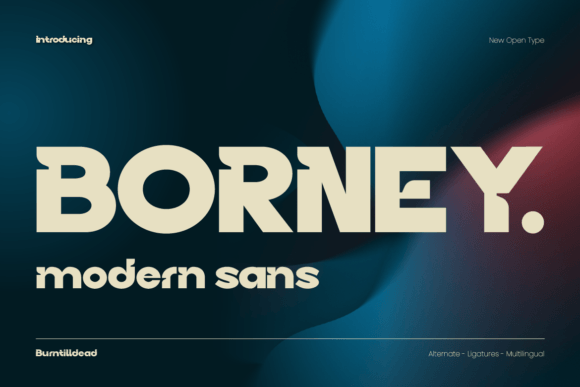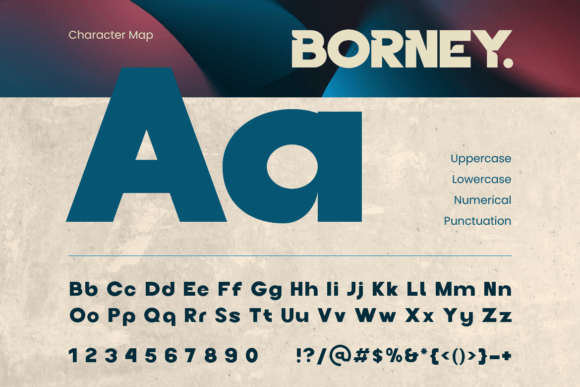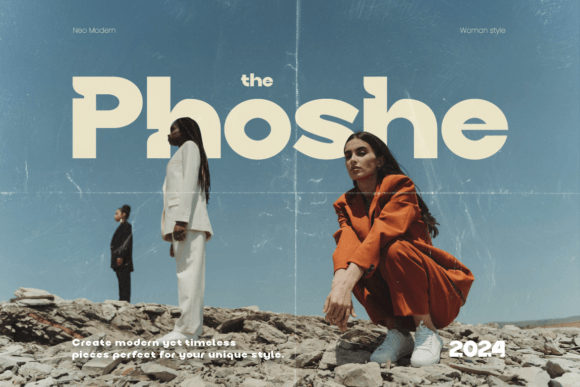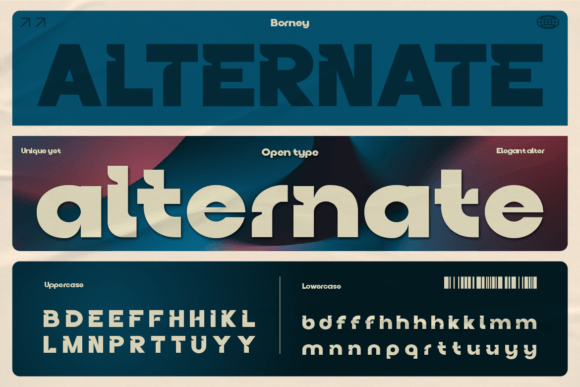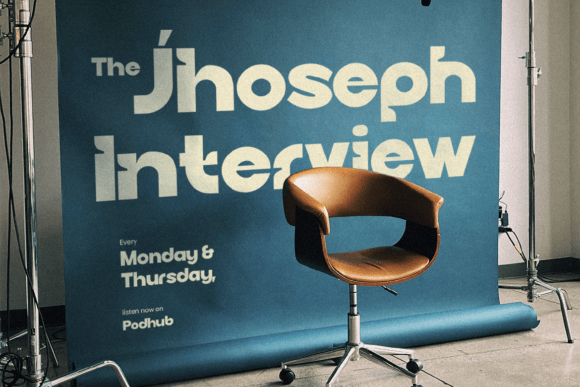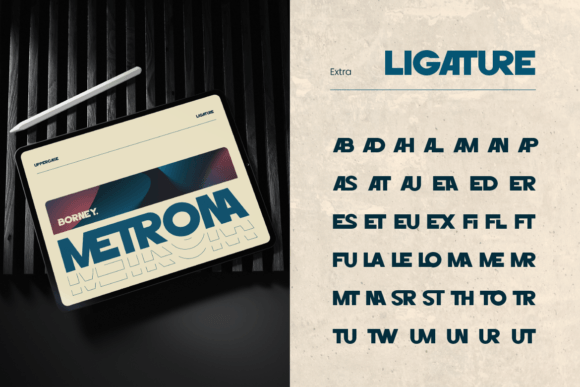
Introducing Borney Font: The Epitome of Modern Minimalism
In the realm of typography, few fonts have managed to capture the essence of modern minimalism as effectively as Borney. This sans serif font has been gaining popularity among designers and crafters for its bold, clean lines and minimalistic appearance, making it an ideal choice for a wide range of design applications.
The Characteristics of Borney Font
Borney is a modern sans serif font characterized by its simplicity and aesthetic appeal. Its clean lines and lack of embellishments give it a sleek, professional look that is perfect for designs that require a forward-thinking style. The font’s minimalistic appearance allows it to blend seamlessly into various design contexts, from corporate branding and editorial layouts to web interfaces, signage, branding, and product labels.
The Benefits of Using Borney Font
So, why have designers and crafters fallen in love with Borney? Here are just a few benefits of using this versatile font:
- Professionalism: Borney’s clean and simple design conveys a sense of professionalism, making it perfect for corporate branding, business cards, and other professional materials.
- Legibility: The font’s bold lines and clear typography ensure that it is highly legible, even at small sizes, making it ideal for use in web interfaces, signage, and product labels.
- Versatility: Borney’s minimalistic design allows it to be used in a wide range of design contexts, from modern editorials to sleek branding and packaging.
- Modern Aesthetic: The font’s modern sans serif design gives it a fresh, forward-thinking look that is perfect for designers who want to create a contemporary feel in their work.
Design Applications for Borney Font
Borney’s versatility and aesthetic appeal make it an excellent choice for a variety of design applications, including:
- Corporate Branding: Use Borney to create a professional and modern brand identity that exudes confidence and sophistication.
- Editorial Layouts: The font’s clean lines and minimalistic design make it perfect for use in editorial layouts, such as magazines, newspapers, and blogs.
- Web Interfaces: Borney’s legibility and modern aesthetic make it an excellent choice for web interfaces, including website headers, buttons, and navigation menus.
- Signage: The font’s bold lines and clear typography make it perfect for use in signage, including billboards, posters, and directional signs.
- Branding and Product Labels: Use Borney to create modern and eye-catching branding and product labels that stand out on store shelves.
Tips for Using Borney Font Effectively
To get the most out of Borney, here are a few tips to keep in mind:
- Use it sparingly: While Borney is a versatile font, it’s best to use it sparingly to avoid overwhelming the design.
- Experiment with font sizes: Borney’s legibility makes it suitable for use at a range of font sizes, from small captions to large headlines.
- Pair it with other fonts: Borney pairs well with other sans serif fonts, as well as serif fonts with a minimalist aesthetic.
| Font Name | Borney Font |
| Author | Burntilldead |
In conclusion, Borney font is a modern sans serif font that embodies the principles of minimalism and simplicity. Its clean lines, bold typography, and aesthetic appeal make it an excellent choice for designers and crafters looking to create professional, modern designs. With its versatility and legibility, Borney is sure to become a staple in any designer’s toolkit.